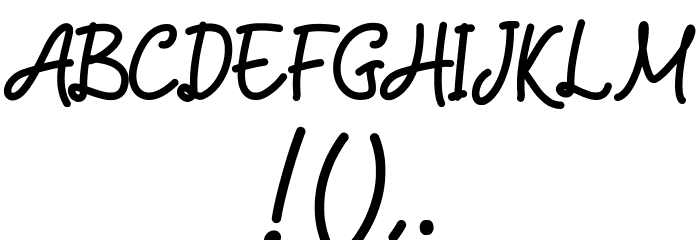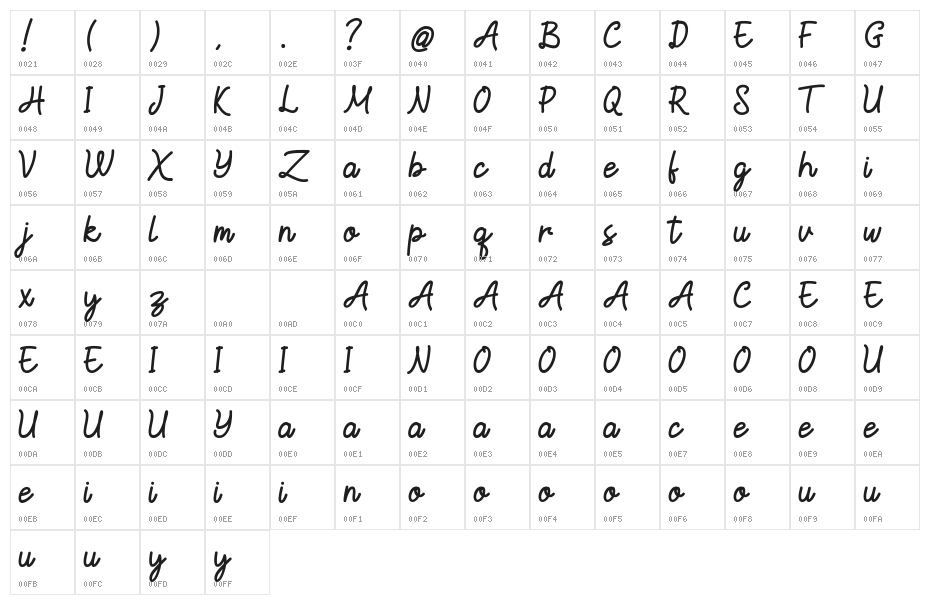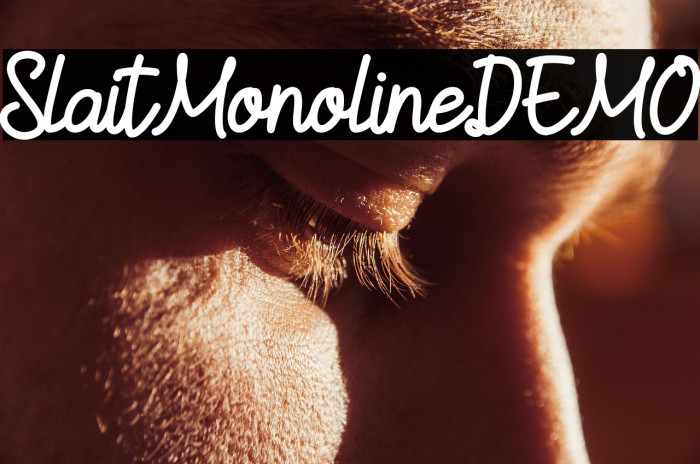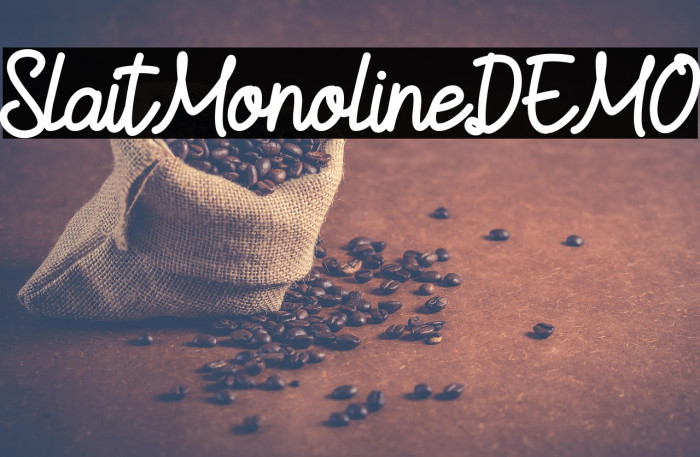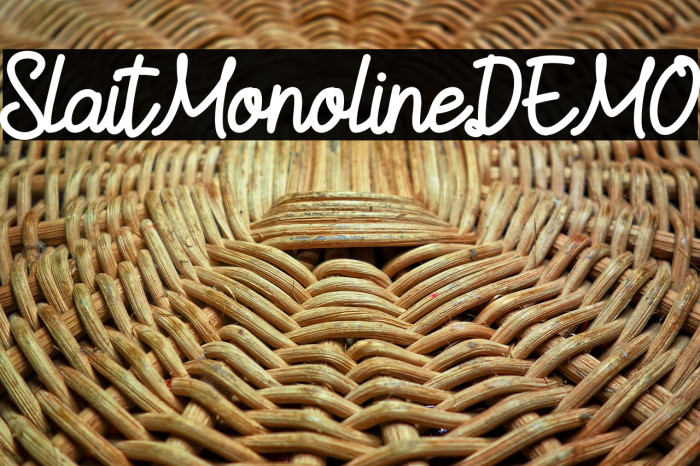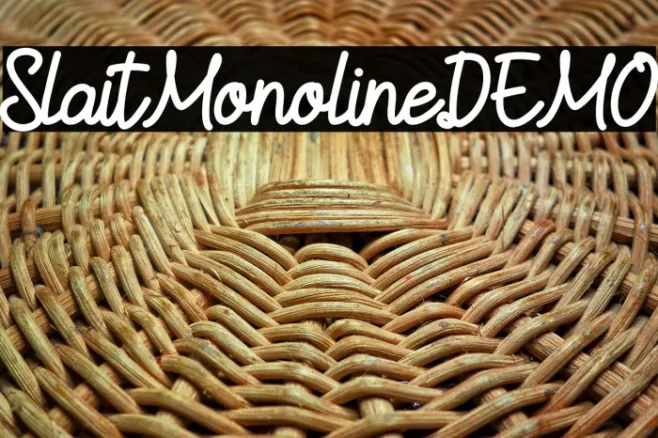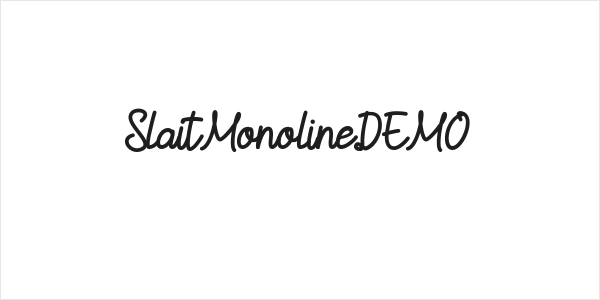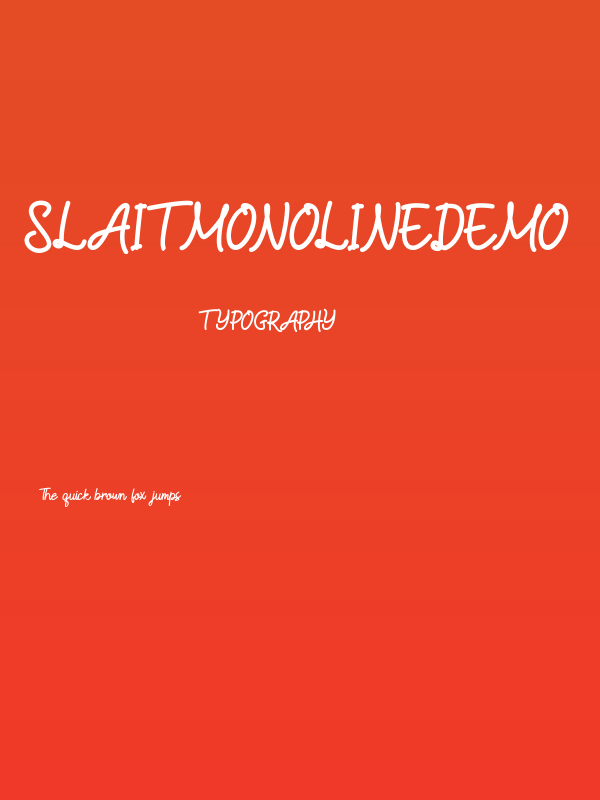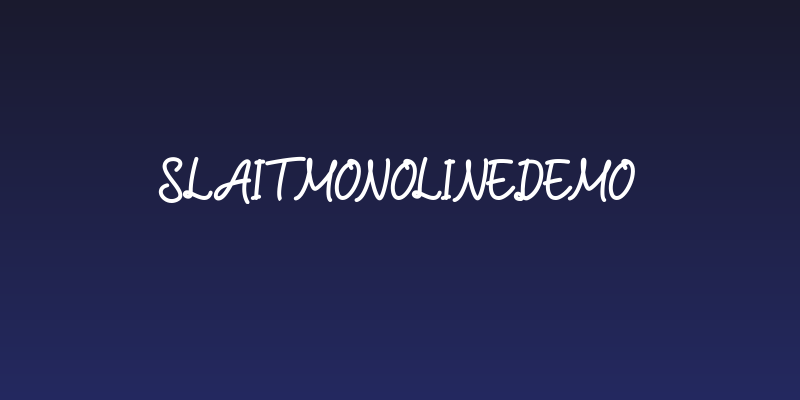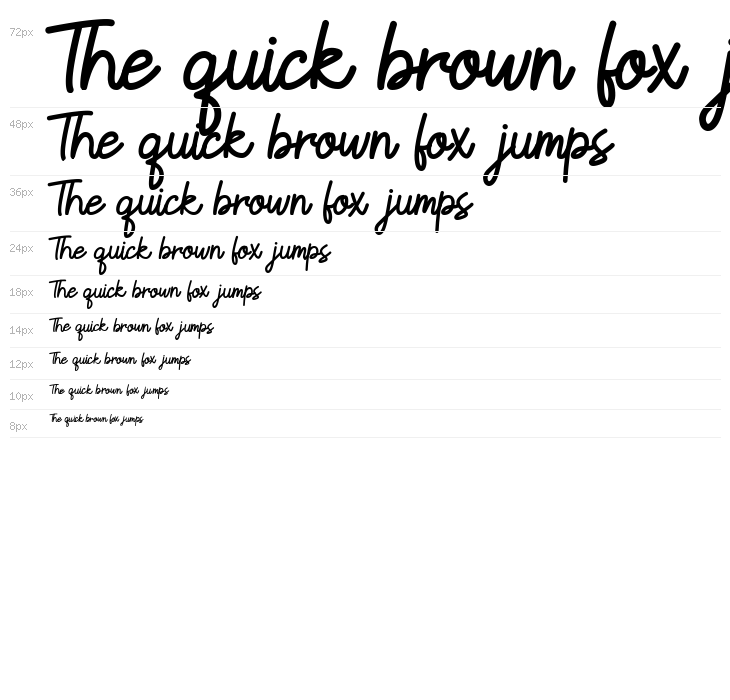
SlaitMonolineDEMO Font
SlaitMonolineDEMO Description
This font features a monoline script style with a smooth, flowing appearance. The letters are connected, giving it a handwritten feel, while maintaining a consistent stroke width throughout. The uppercase letters are bold and prominent, while the lowercase letters are slightly more compact, yet maintain the same fluidity. The numerals and special characters are designed to match the overall aesthetic, ensuring a cohesive look. This font exudes a casual elegance, making it suitable for a variety of creative projects.
| Proposed Projects | Ideal for wedding invitations, greeting cards, branding, and social media graphics. |